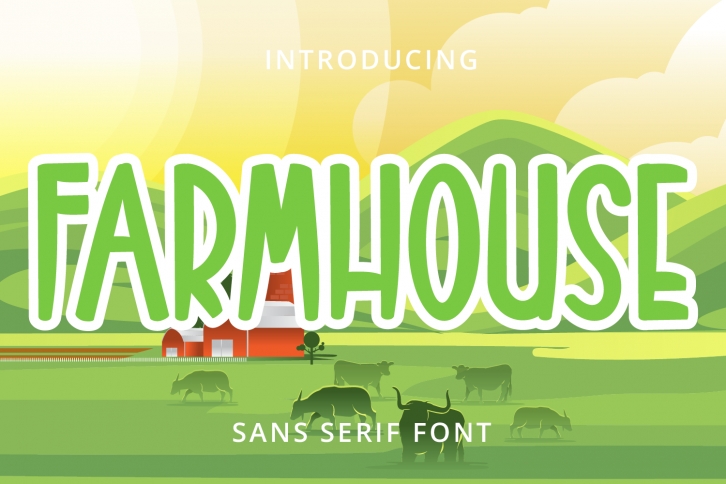
Farmhouse is an incredibly cool and casual display font. It is the best choice for creating eye-catching logos, branding, and quotes. Every letter has a unique and beautiful touch that will make your design come alive!